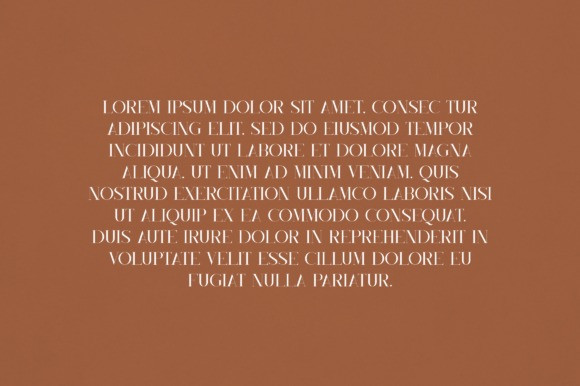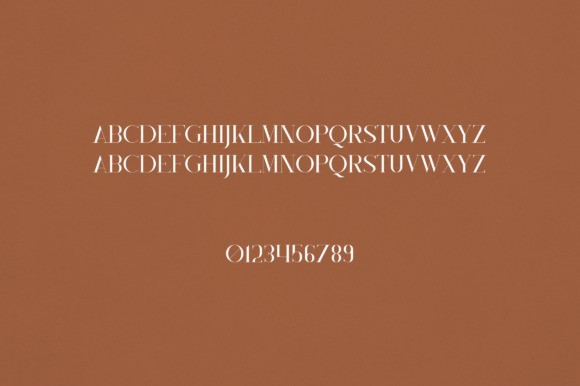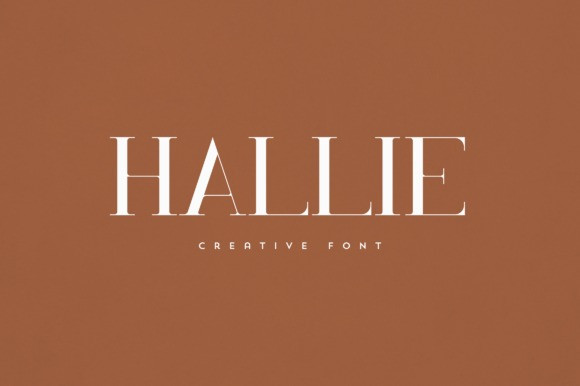
Hallie Font
Hallie Font is an elegant and versatile serif font that will make your typography truly unique! It will enchant every logo, branding, headline, or plain text!